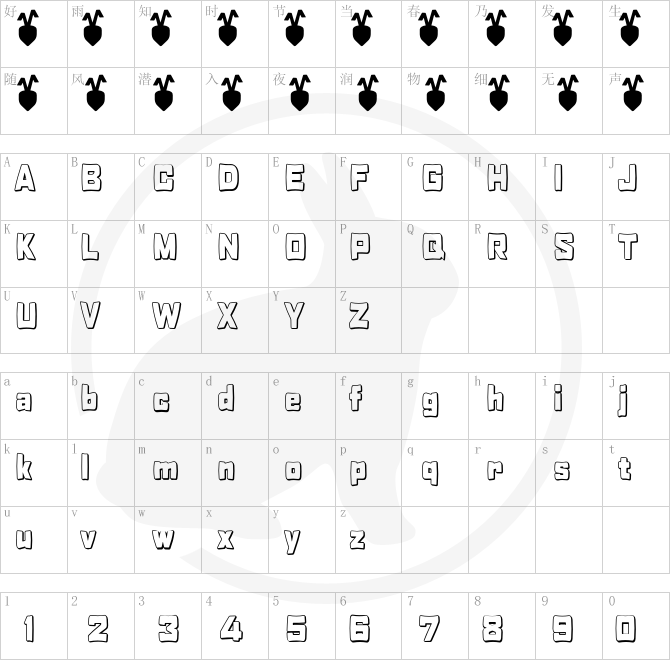
- Font Name:Rabanera
Rabanera.otf is a very beautiful artistic font, Rabanera.otf is widely used in the design and printing of various books and pictures,Rabanera.otf has a strong visual impact,Rabanera.otf is a commonly used font in newspapers, magazines and books, and is used in posters, e-commerce Poster design, store design, logo design, font design and other fields.Rabanera.